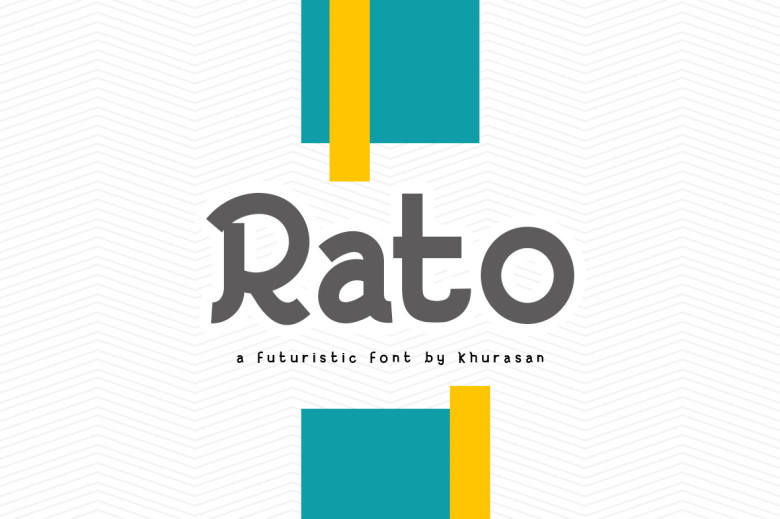
Rato Font
Rato is a distinctive sans-serif font with soft and fluid strokes that makes this font appear elegant, chic and feminine. Ideal for feminine branding designs and adaptable to various design themes.
Rato Sans Serif Font